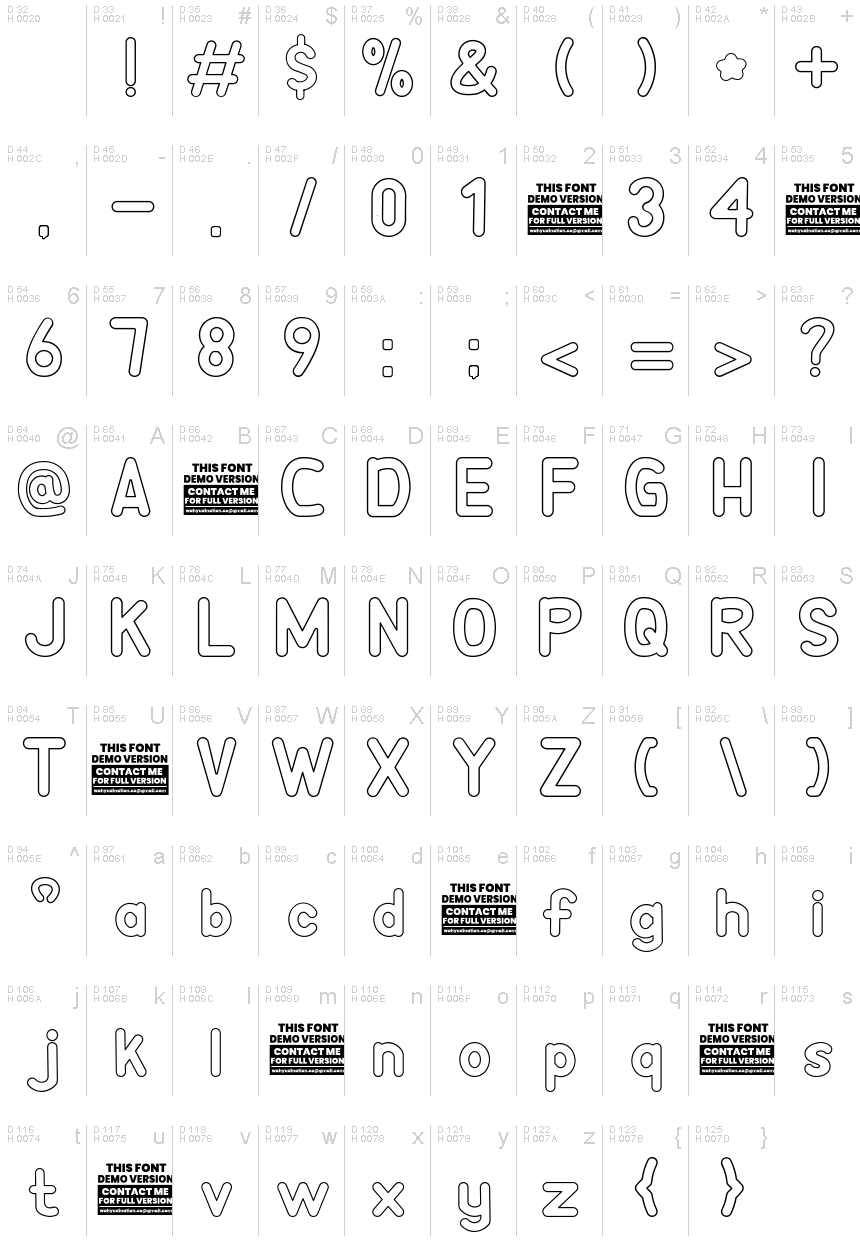
ABCD STARS KID OUTLINE DEMO Reg
ABCD Stars Kid font is a delightful creation by Sakolabook, capturing the charm of an outlined cartoon style. This playful and geometric display font has rounded contours that exude modern appeal and friendly aesthetics.